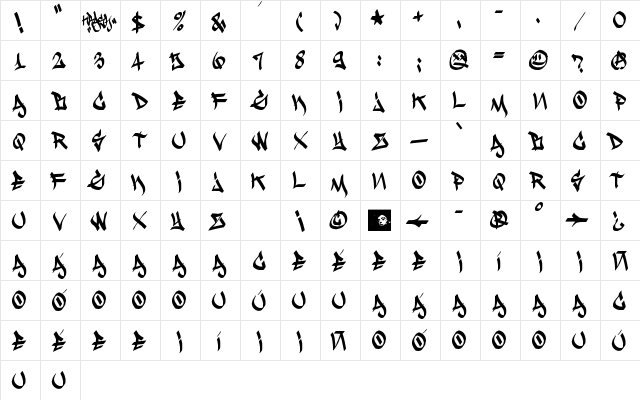
Krash Normal Font Preview
Krash Normal
| Designer | Jos頢Beraka" Lobos |
Design Context for Krash Typeface
Krash is a composed and adaptable typeface that performs quietly and consistently across a wide range of design contexts.